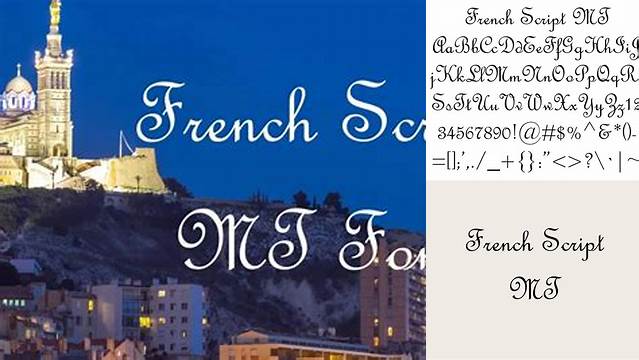
Hey guys! Ever stumbled upon a font that just oozes elegance and class? That's French Script MT for you. It's the kind of font that can instantly elevate any project, whether it's wedding invitations, logos, or even just spicing up your social media graphics. But where can you snag this beauty for free? That's what we're diving into today. We’re going to explore everything about the French Script MT font, from its unique characteristics to where you can download it without spending a dime. Think of this as your ultimate guide to getting your hands on this classic typeface. We'll cover the basics, the legalities, and even some tips and tricks for using it effectively in your designs. So, buckle up, and let's get started on this font-tastic journey! You'll be adding a touch of French flair to your projects in no time. We'll also delve into the various aspects that make this font so popular and versatile, ensuring you understand its full potential. By the end of this guide, you'll not only know where to download French Script MT for free but also how to use it to create stunning visuals. So, let’s get right to it!
1. What is French Script MT Font?
French Script MT is more than just a font; it's a statement. Its flowing lines and elegant curves evoke a sense of classic sophistication, making it a go-to choice for projects that need a touch of refined beauty. Imagine those beautiful wedding invitations or a high-end brand logo – French Script MT fits right in. But what exactly makes this font so special? Well, it's all in the details. The font's calligraphic style gives it a handwritten feel, adding a personal touch that many other fonts lack. This makes it ideal for projects where you want to convey warmth and authenticity. Beyond its aesthetic appeal, French Script MT has a rich history. It's been used in countless designs over the years, cementing its place as a timeless classic. Knowing the history and the design philosophy behind a font can often help you appreciate it more and use it more effectively. In this section, we'll dive deeper into the specifics of what defines French Script MT, including its unique letterforms and overall design characteristics. This understanding will help you appreciate why it’s such a popular choice for various design applications. We'll also explore some of the common uses of French Script MT and see how it has been applied in real-world projects, giving you a better sense of its versatility and potential.
2. Key Features of French Script MT
Alright, let's get into the nitty-gritty of what makes French Script MT tick. What are the key features that set it apart from other script fonts? First off, it's all about the flow. The letters connect seamlessly, creating a sense of graceful movement across the page. Think of it like a beautiful dance – each character flows into the next with effortless elegance. This fluidity is one of the main reasons why it's so popular for invitations and formal documents. Another key feature is its high level of readability. While some script fonts can be difficult to decipher, French Script MT strikes a balance between style and clarity. The letterforms are distinct and well-defined, making it easy on the eyes even at smaller sizes. And let's not forget about the stylistic flourishes. The font includes elegant swashes and loops that add a touch of drama and flair. These details are what give French Script MT its unique personality and make it stand out from the crowd. We’ll also discuss how these features contribute to its overall aesthetic appeal and why they make it a preferred choice for designers. Understanding these elements will help you make informed decisions about when and how to use French Script MT in your projects. We’ll also touch upon some of the technical aspects, such as its availability in different weights and styles, and how these variations can impact your design choices.